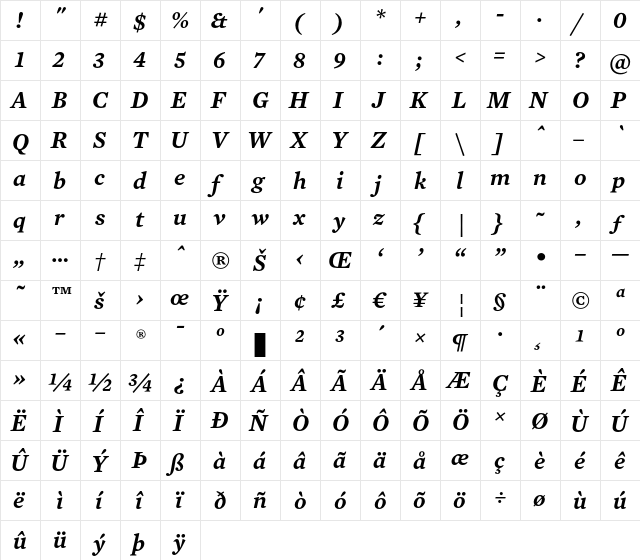
Mercury Text G3 Semibold Italic Font Preview
Design Context for Mercury Text G3 Typeface
Mercury Text G3 is a composed and adaptable typeface that performs quietly and consistently across a wide range of design contexts. The dynamic lean of this cut emphasises speed and emphasis in any layout. The heavy weight commands attention and anchors typographic hierarchies.
Pro Tip: Try Mercury Text G3 for annotation and caption copy alongside an upright companion — the contrast in angle creates a dynamic but ordered typographic system.